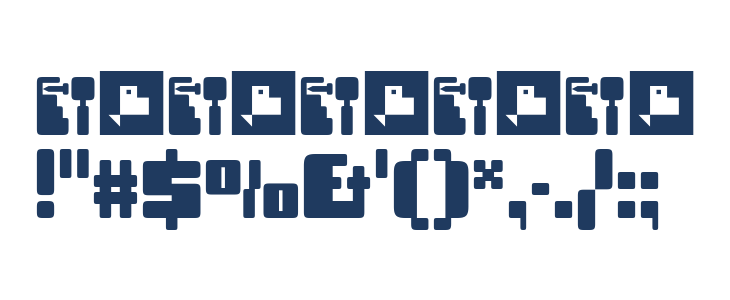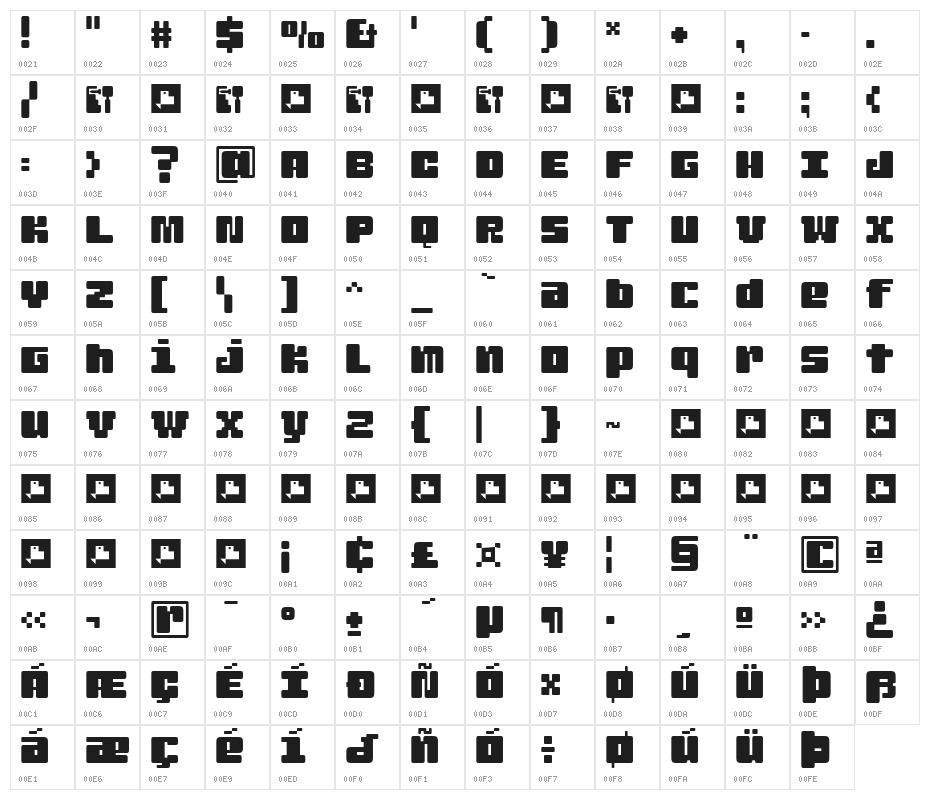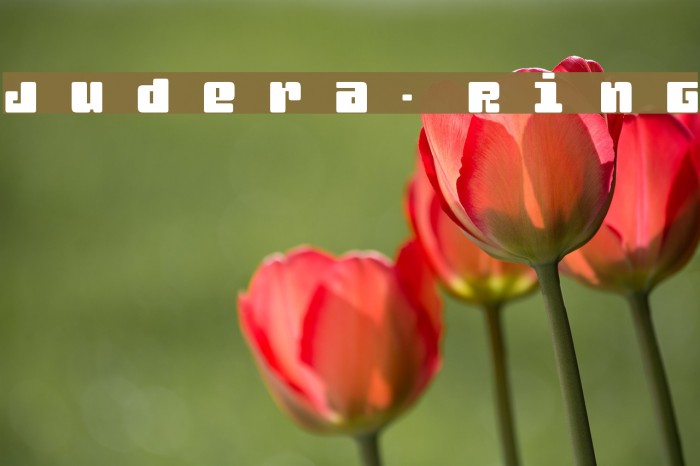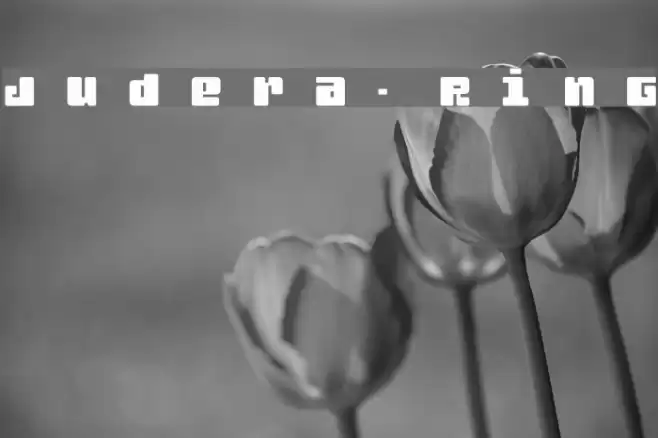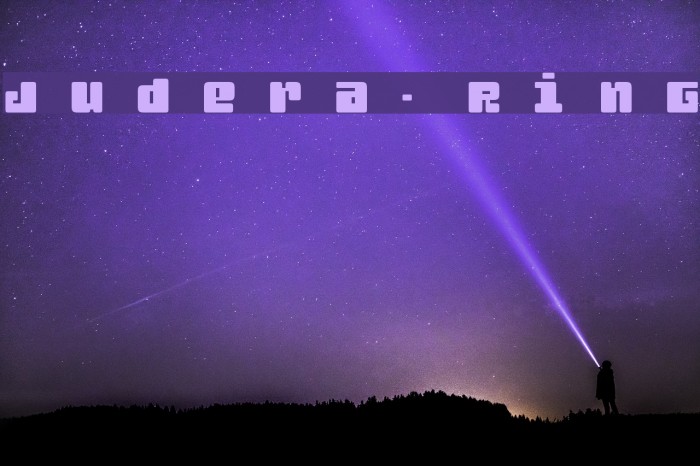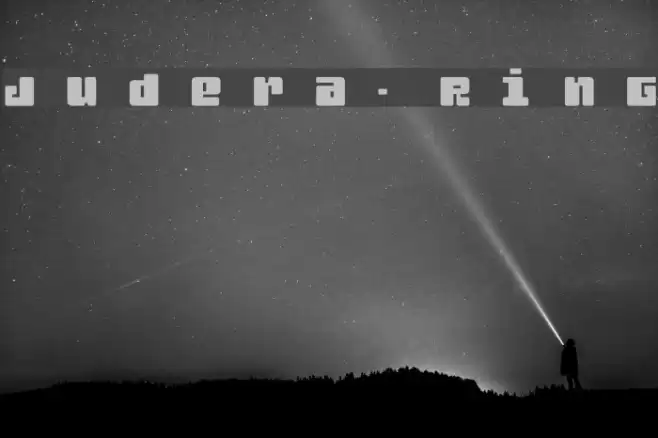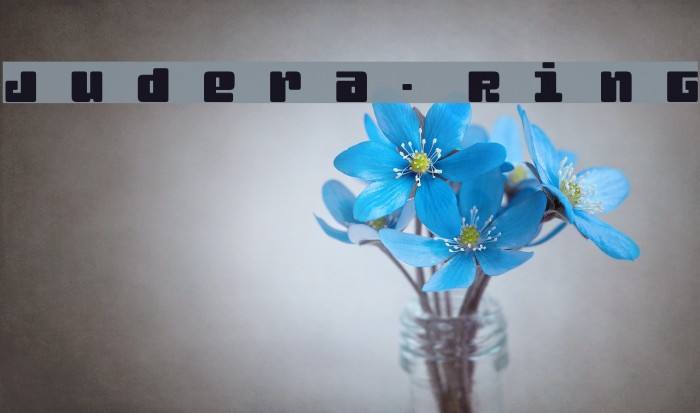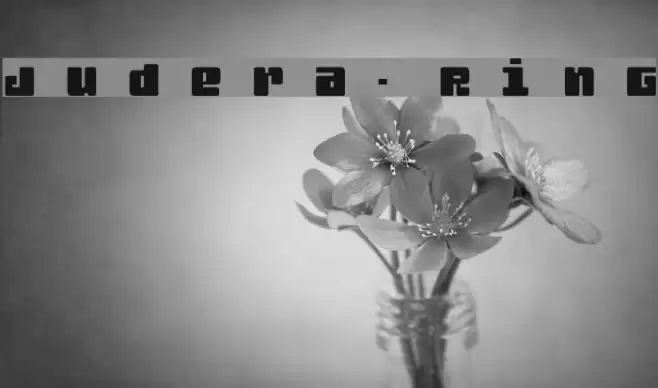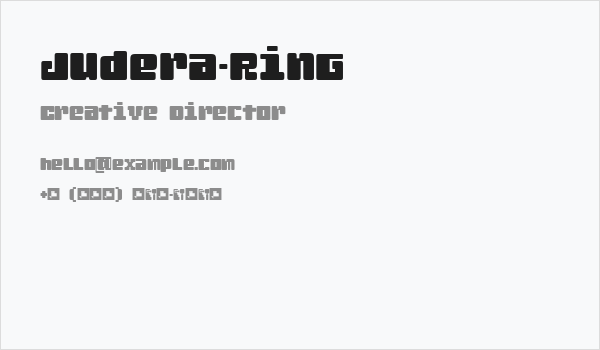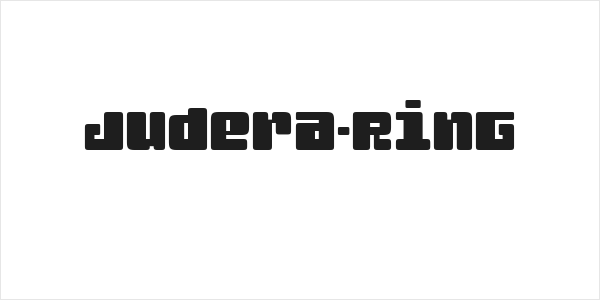
Judera-Ring Font
Judera-Ring Description
This font features a bold, geometric design with a pixelated, blocky appearance. Each character is constructed with a uniform thickness, creating a cohesive and structured look. The uppercase and lowercase letters maintain a consistent style, emphasizing the font's modern and digital aesthetic. The numerals and special characters follow the same design principles, ensuring a seamless integration across different uses. The font's distinct style makes it ideal for projects that require a strong visual impact, such as digital art, video game graphics, or tech-themed branding. Its unique appearance is both eye-catching and memorable, making it a versatile choice for creative applications.
| Use Case | Logos, Headlines, Digital Art |
| Proposed Projects | Ideal for digital art, video game graphics, tech-themed branding, and creative digital projects. |